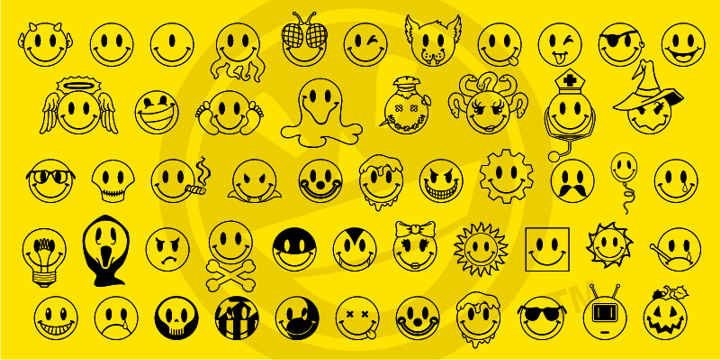
Font name: | JLS Smiles Sampler |
Categories | Dingbats, Heads |
Author: | Fontry West |
Note by Fontry West | |
JLS Smiles Sampler Font by Michael Adkins & James Stirling “Have a nice day!” I can remember that motto and the smiley face from childhood. It was friendly, optimistic little image that became an icon. These days it has been updated and is a collection of emoticons used by cultures world wide. The smiley face can now be friendly, sad, happy, angry, etc. This collection is our fun expression of the smiley face. We've got smileys for emotions, seasons, some holidays, and just about all of the emotions. There are smileys for just about every occasion. We also created a smiley tribute to classic movie monsters. So, have a (insert your preference here) day! This face is available for commercial use. Please feel free to contact us for price, links and details at: thefontry@yahoo.com or visit the Fontry website http://www.thefontry.com/ The larger commercial version can also be found on MyFonts.com at: http://new.myfonts.com/fonts/fontry-west/jls-smiles/ |